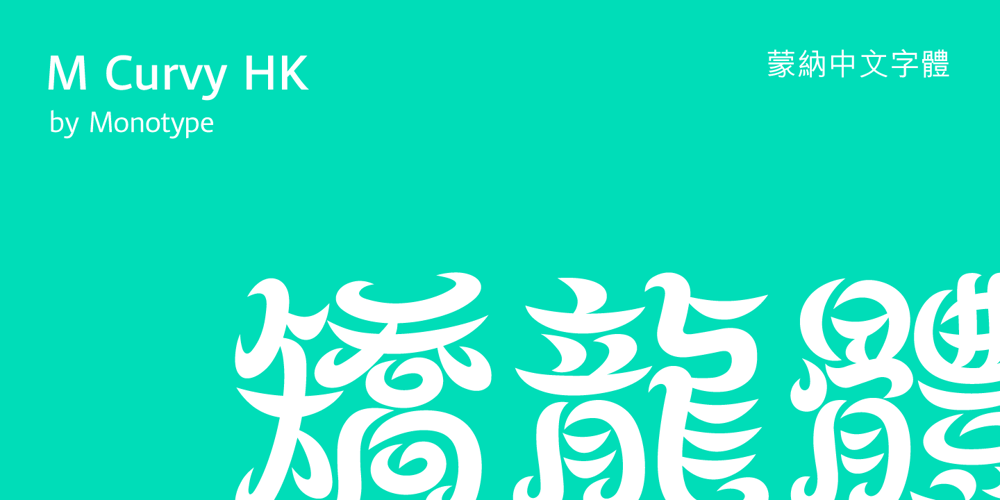
M Curvy HK Font Family was designed by published by Monotype HK. M Curvy HK contains 1 styles and family package options. M Curvy’s design breaks the mould of traditional Chinese characters to construct a brand new style. Referencing a traditional Chinese calligraphic style that is written with the brush suspended in mid-air, the flow between strokes within each character is free and smooth in this typeface. With an even stroke density. M Curvy is legible, gentle, yet stable, combining tradition and innovation.